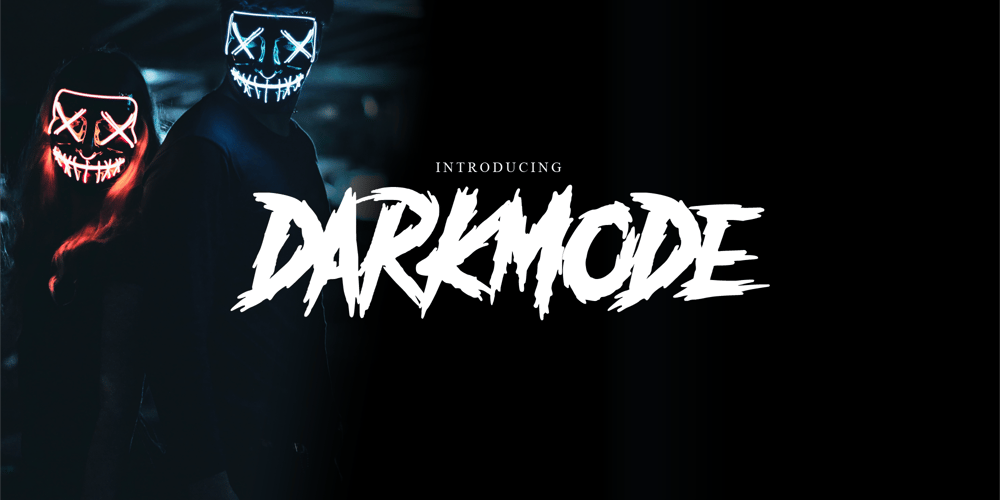
DARKMODE Helloween Font Family was designed by Wahyu Aji Prasetyo and published by WAP Type. DARKMODE Helloween contains 1 styles and family package options. Darkmode helloween was inspired from gothic, scary, protest, and horror nuance. Combine with hand drawn brush who make the typeface looks very instant and messy.Uses for film, quotes, cover book, title, cover album, logo, clothing, invitation, event, labels, poster, etc.